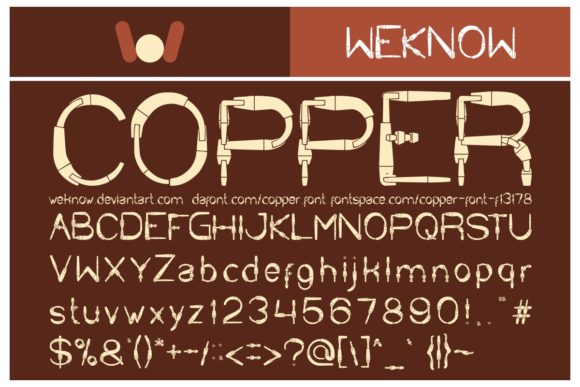
Journey to the cutting edge of visual artistry with Copper Font, the display font that pushes the boundaries of creativity. Its sleek and futuristic design ignites a spark of imagination, propelling your crafting projects into the realm of the extraordinary. With Copper Font, you unlock a world of possibilities, where your designs become captivating masterpieces that leave a lasting impression.
Express your individuality by crafting logos that radiate boldness and innovation, captivating social media posts that command attention, or eye-catching website headlines that draw visitors in like moths to a flame. Unleash your inner designer and create greeting cards that exude warmth and elegance, or invitations that hint at the unforgettable event to come. With Copper Font, the creative possibilities are limitless.
Whether you're a seasoned designer or just starting your artistic journey, Copper Font is your passport to visual excellence. Its user-friendly nature makes it accessible to anyone with a passion for creating, while its versatility ensures compatibility with various design software. Dive into the world of digital artistry and elevate your designs to new heights with Copper Font.